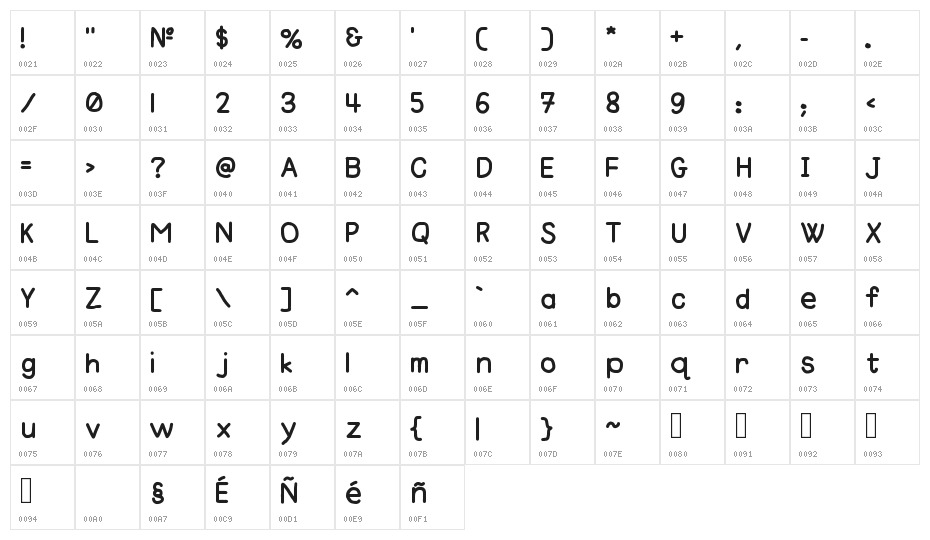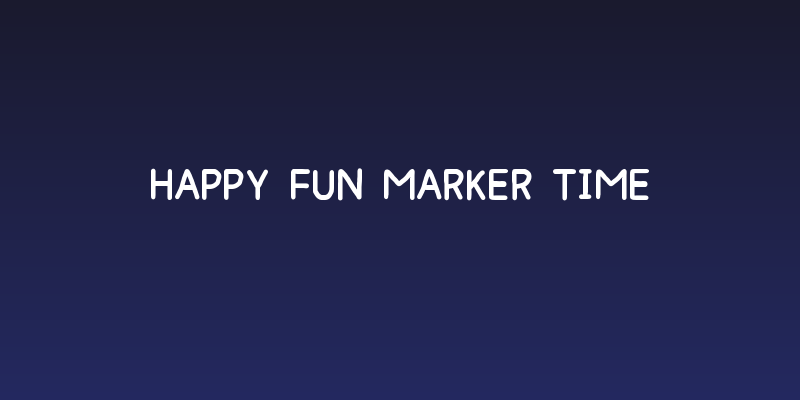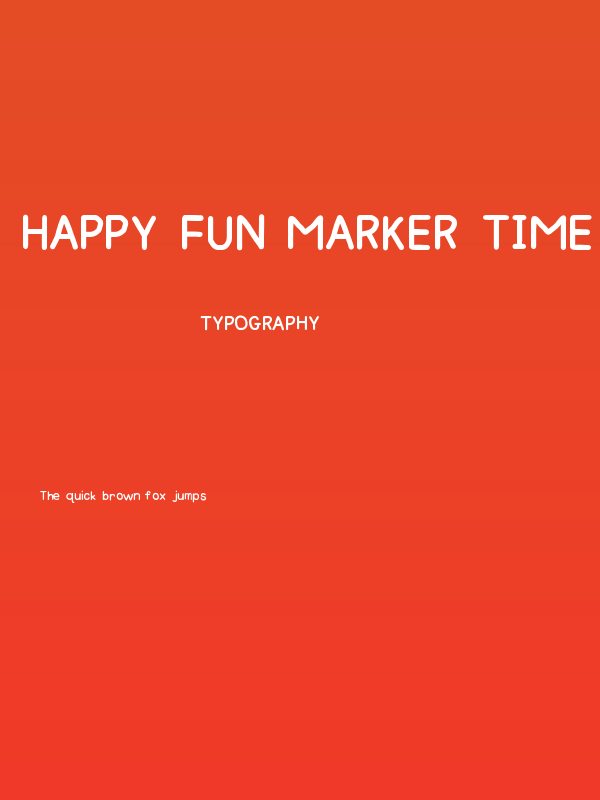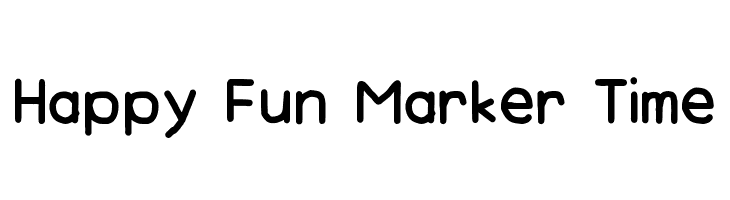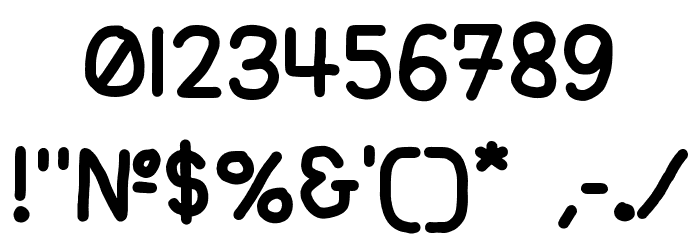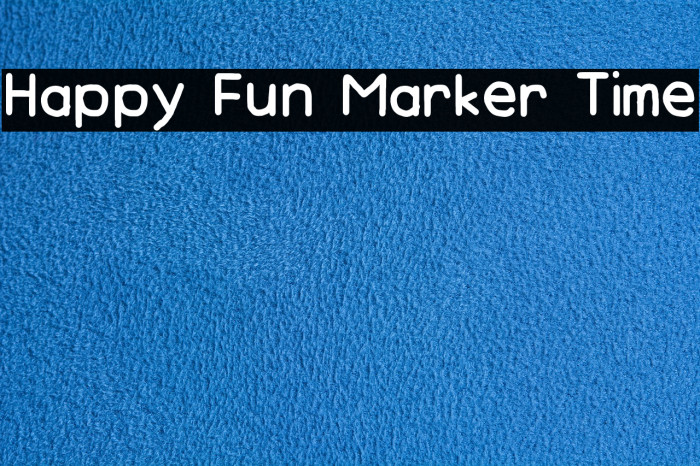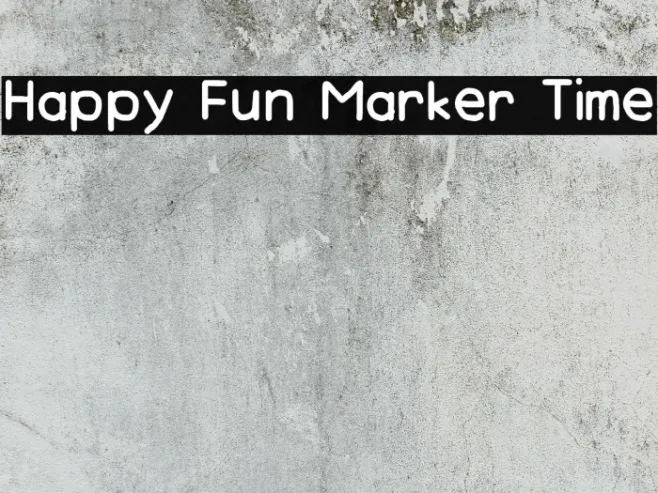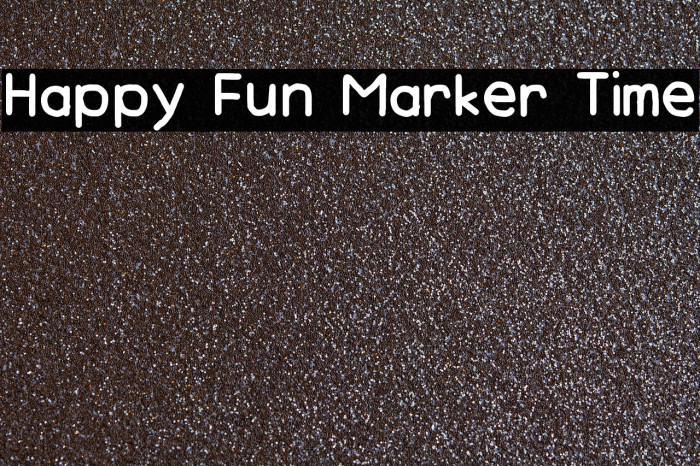
Happy Fun Marker Time Font
Happy Fun Marker Time Description
This playful and whimsical font features rounded, marker-like strokes that give it a casual and friendly appearance. The characters are slightly irregular, adding to the hand-drawn feel, while maintaining legibility. Uppercase and lowercase letters are well-proportioned, and the numbers and special characters complement the overall style. The font's informal and approachable design makes it ideal for projects that require a touch of fun and creativity. Its unique charm is perfect for children's books, playful branding, or any design that aims to convey a sense of joy and spontaneity.